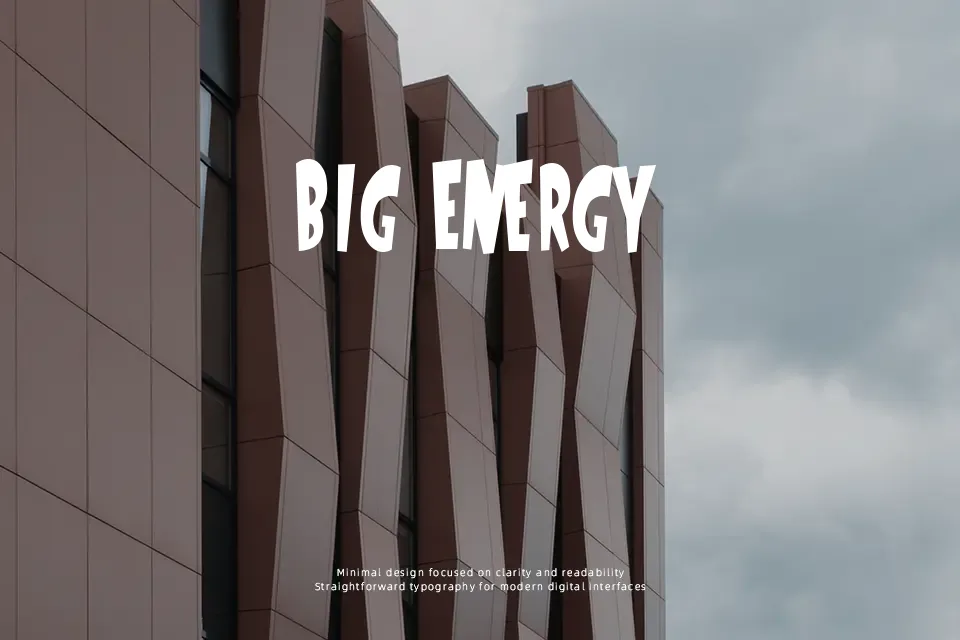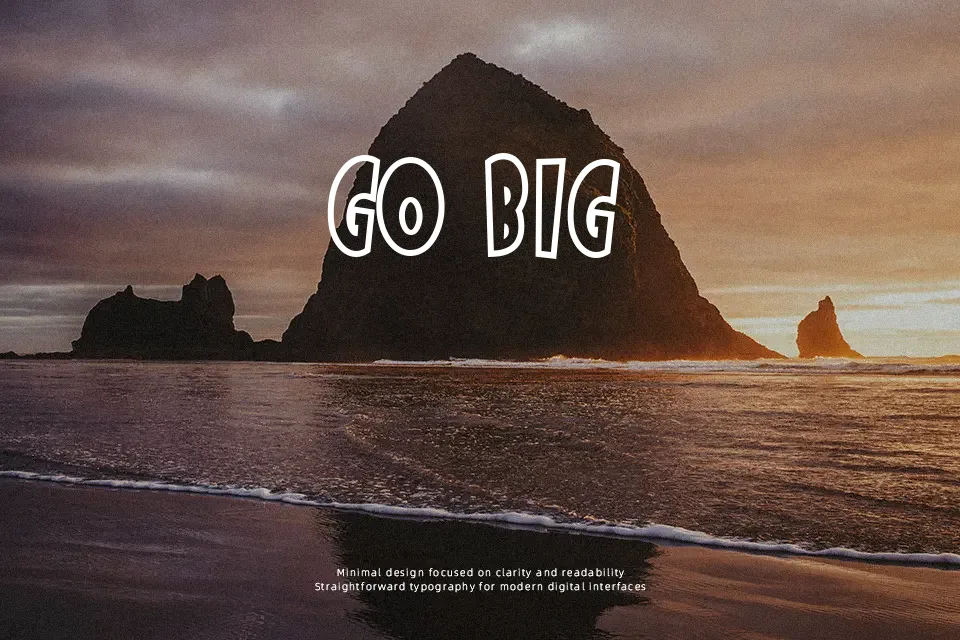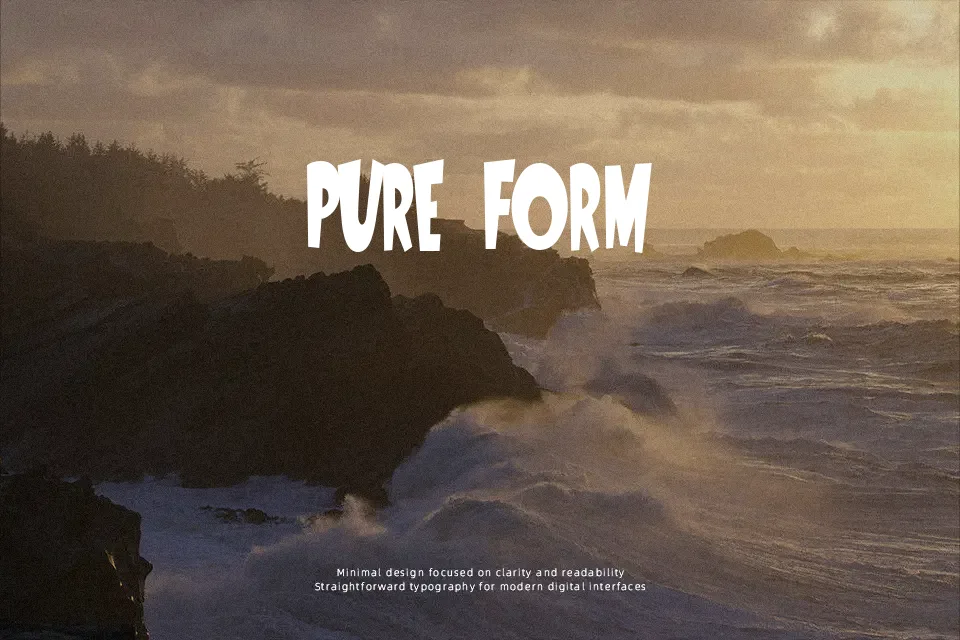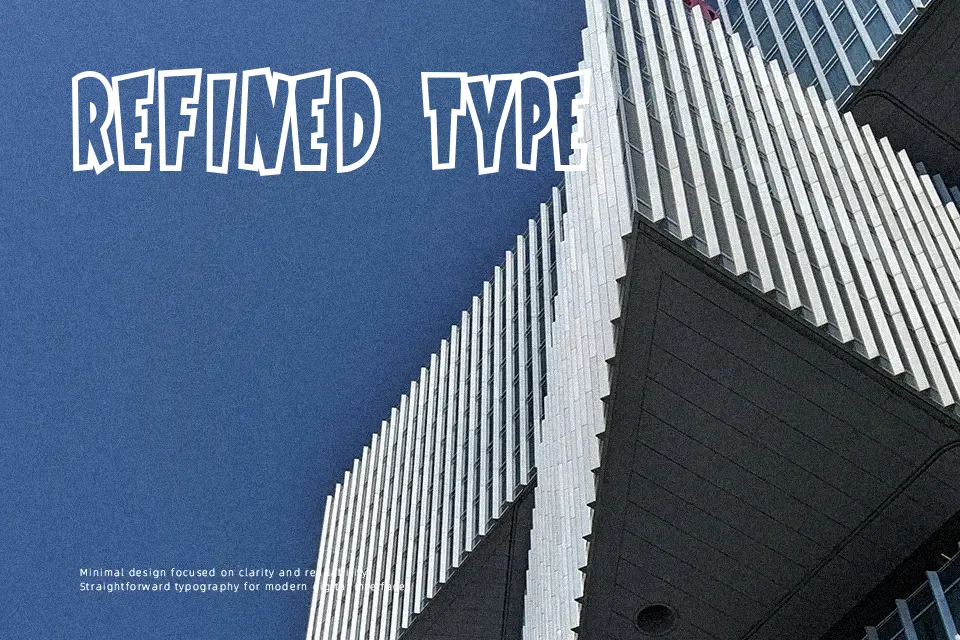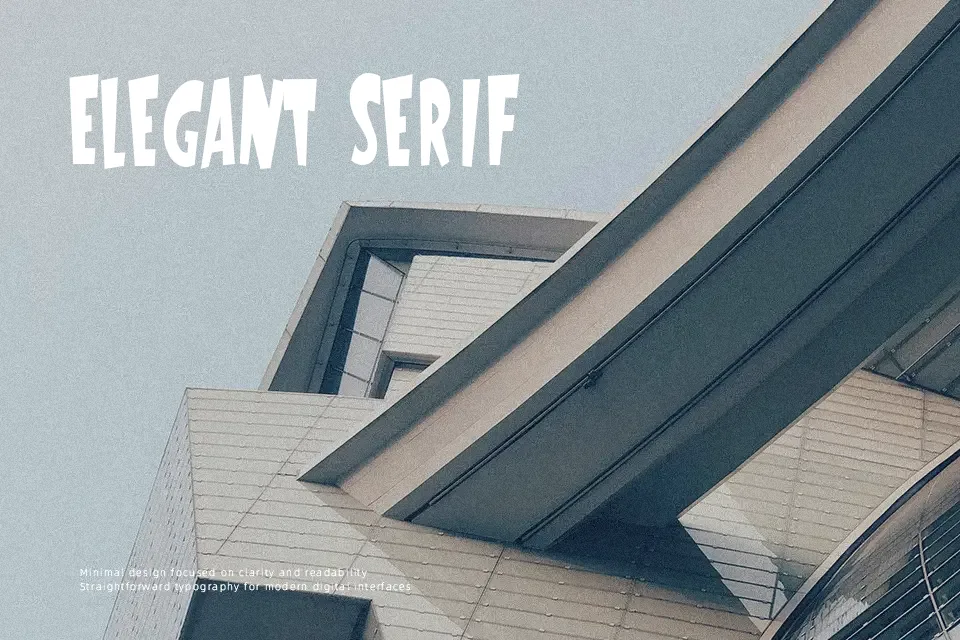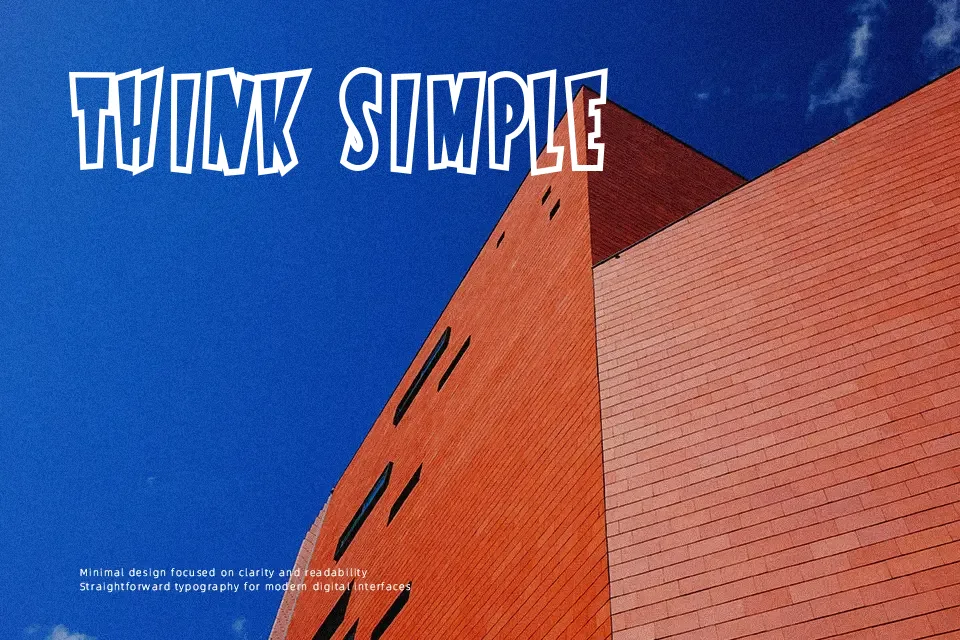
Startling Font
Designed by Gaut Fonts
Startling Font presents an expressive cartoon aesthetic defined by heavy stroke weights, slightly irregular baselines, and lively asymmetrical contours. The character spacing is relatively tight, which helps reinforce solid graphic cohesion across short words and bold headline compositions. Tall uppercase proportions provide strong silhouette contrast, giving each glyph an unmistakable comic book flavor. However, the thick stems and quirky counter spaces make extended reading uncomfortable, rendering the typeface impractical for paragraphs or compact user interface text. When applied to horror posters, video game titles, or seasonal product labels, the design delivers immediate impact without sacrificing individual character clarity.
– horror movie posters
– retro arcade game titles
– seasonal halloween merchandise
– comic book cover headers
– continuous body paragraphs
– corporate financial reports
– mobile app interface labels
– small print technical manuals
Perfect for gaming, halloween, and headline, with a bold and cartoon style.